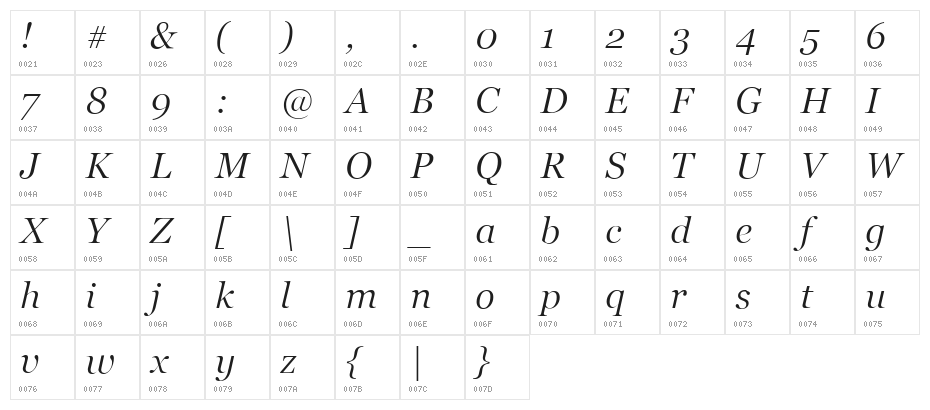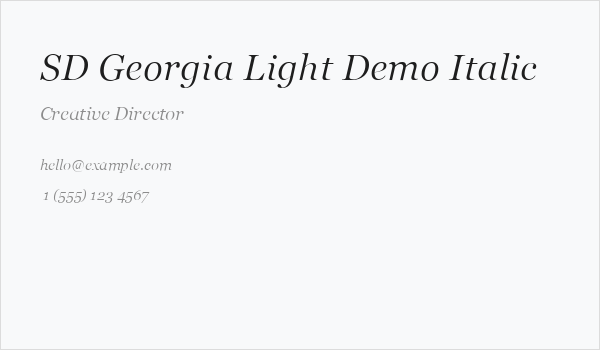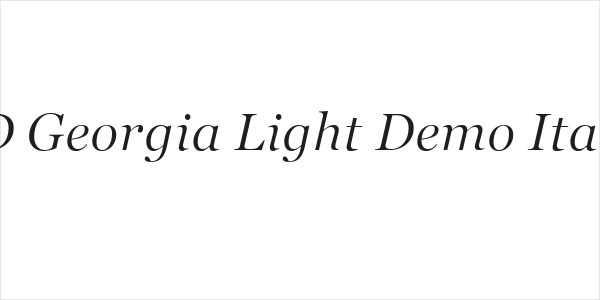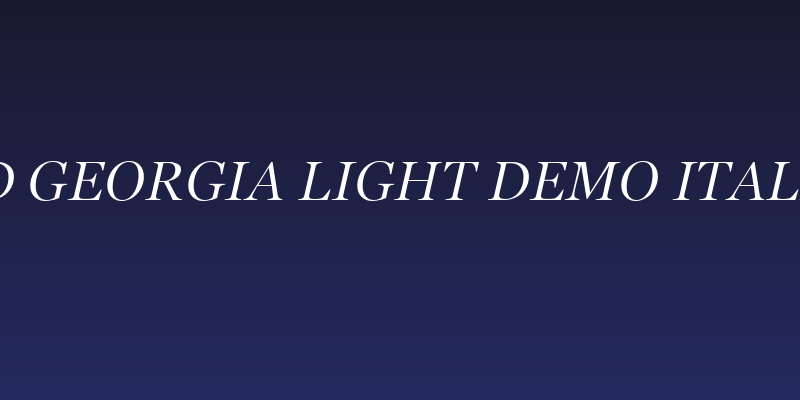
SD Georgia Light Demo Italic Font
SD Georgia Light Demo Italic Description
This elegant serif font features a classic and sophisticated design with a light weight and italic style. The characters are gracefully slanted, providing a sense of movement and fluidity. The serifs are well-defined, adding a touch of tradition and formality. The font maintains a balanced contrast between thick and thin strokes, enhancing readability while preserving its refined appearance. The overall aesthetic is timeless, making it suitable for a variety of formal and professional applications.